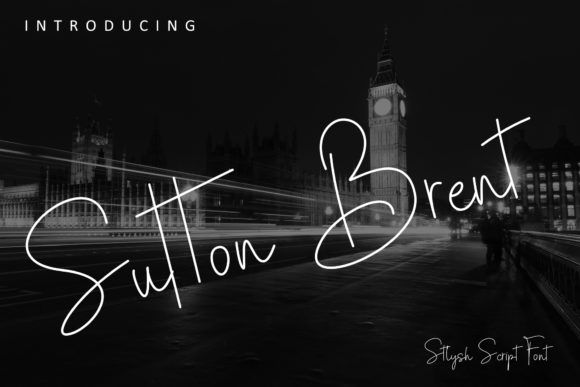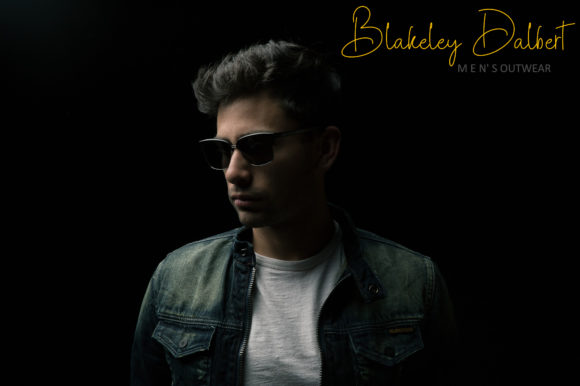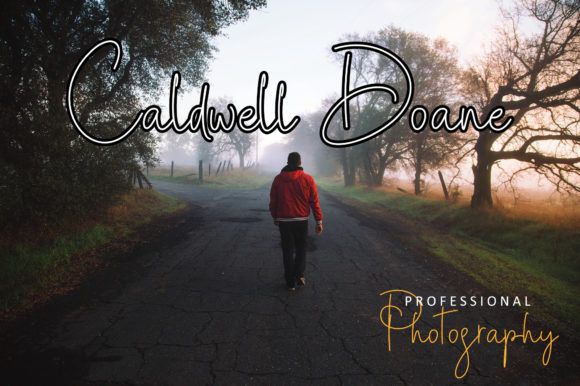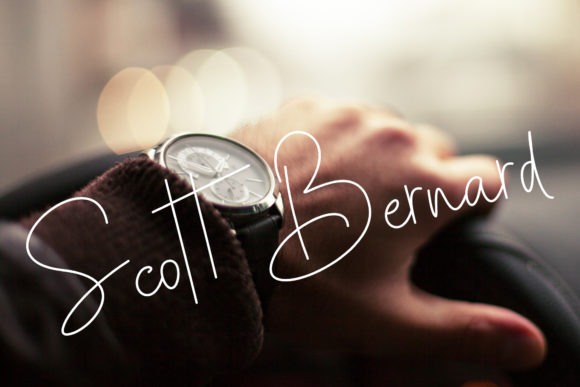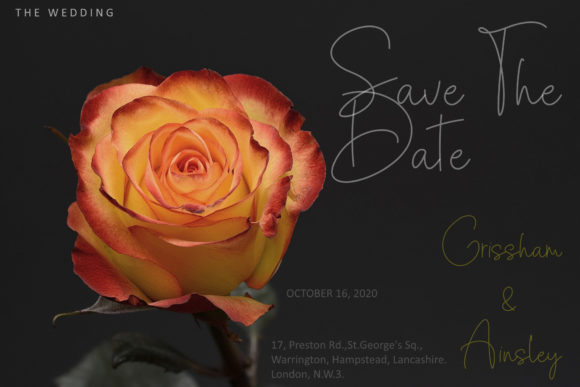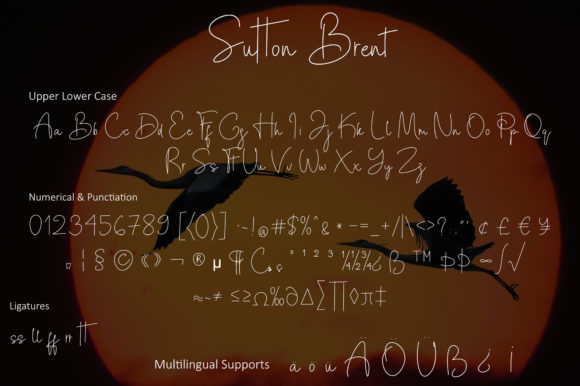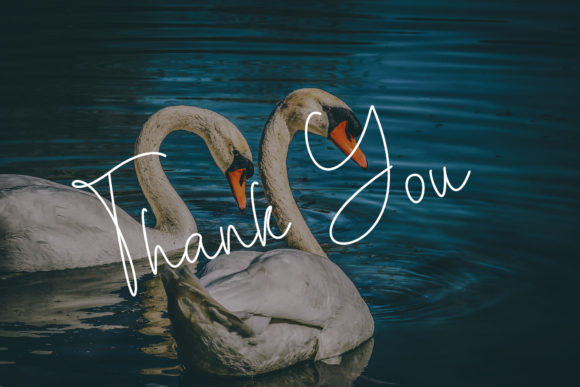
Sutton Brent Font
About Sutton Brent Font
Sutton Brent is a delicate and thin handwritten font. It is the best choice for creating eye catching logos, branding and quotes. Every letter has a unique and beautiful touch, which will make your design come alive!